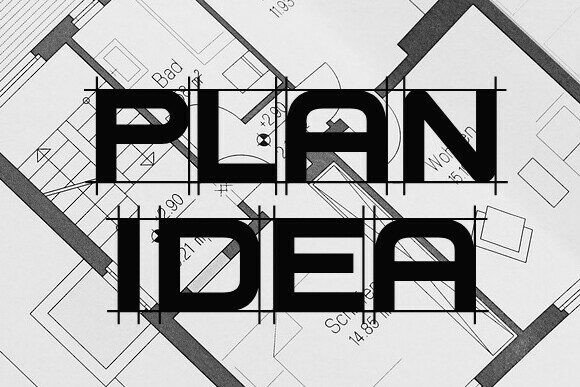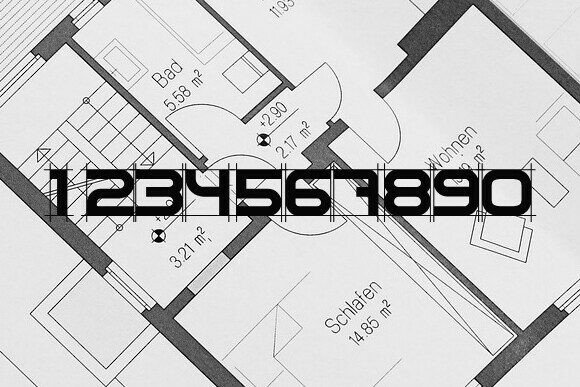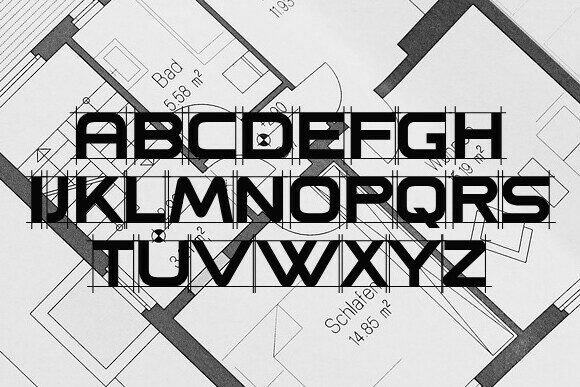
Introduction to Product Design Font
Have you ever stared at a beautiful architectural blueprint, mesmerized by the precision and clarity of the lines and shapes? That’s the kind of visual harmony we’re aiming for with the Product Design Font, a precision-inspired display font that brings a touch of industrial chic to your creative project.
As designers, we’re always on the lookout for high-quality design resources that can elevate our work and help us stand out in a crowded market. The Product Design Font is a valuable addition to any design toolkit, offering a clean, structured aesthetic that’s perfect for tech-focused branding, architectural presentations, and engineering portfolios.
Whether you’re working on a free download or a paid design project, this font is a game-changer, providing a modern, technical edge that’s sure to impress. With its transparent background and geometric forms, it’s the perfect choice for designers who demand clarity, innovation, and precision in their work.
Key Features of Product Design Font
- High-quality vector graphics for precise control and scalability in various design projects.
- Comes with a transparent background, allowing for seamless integration into your creative project’s design.
- Designed specifically for product design, packaging, and branding projects, making it a unique and valuable addition to your design library.
Honest Review: Product Design Font
I recently stumbled upon the Product Design Font and I’m excited to share my thoughts on it. As a designer, I’m always on the lookout for high-quality design resources that can elevate my creative projects.
- High-quality typography: The Product Design Font features clean, modern lines that make it perfect for a variety of design projects.
- Transparent background: The font’s transparent background makes it easy to overlay on top of other design elements.
- Limited character set: While the font is well-designed, it’s limited to a small character set, which may not be ideal for longer blocks of text.
- No additional styles: Unlike some other fonts, the Product Design Font doesn’t come with additional styles or variations.
Overall, I think the Product Design Font is a great addition to any designer’s toolkit. While it may have some limitations, its high-quality design and transparent background make it a valuable resource for any creative project.
Tips for Getting the Most Out of Product Design Font
For the best results, use the Product Design Font on a transparent background to make your design stand out. You can also experiment with different font sizes and styles to create a unique look. Additionally, consider pairing the Product Design Font with other design elements, such as images and shapes, to add visual interest to your design.
Common Use Cases for Product Design Font
The Product Design Font is perfect for a variety of creative projects, including product design, branding, and marketing materials. It’s also a great resource for designers who need a high-quality font for presentations, reports, and other business documents.